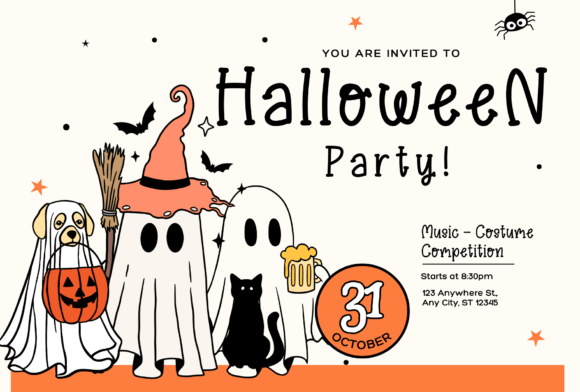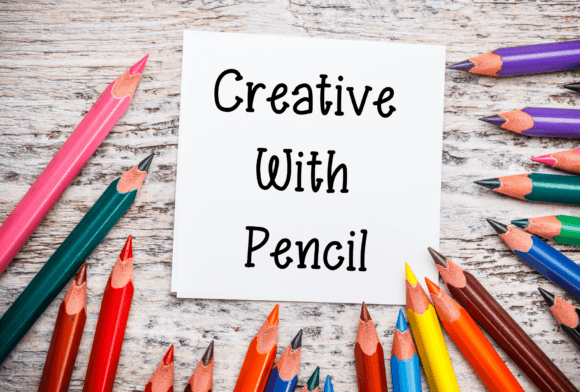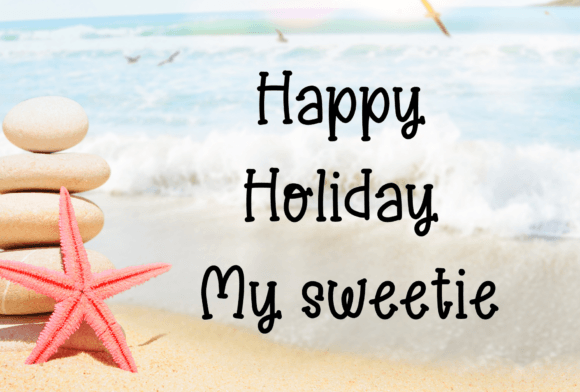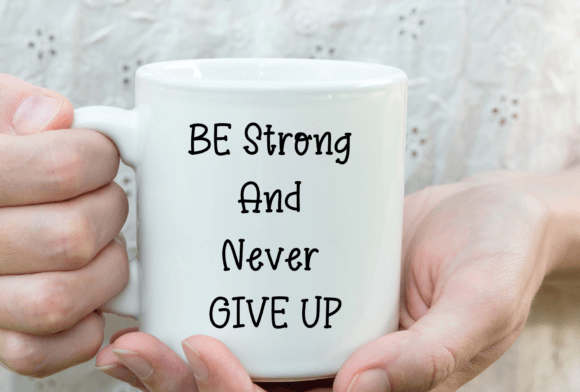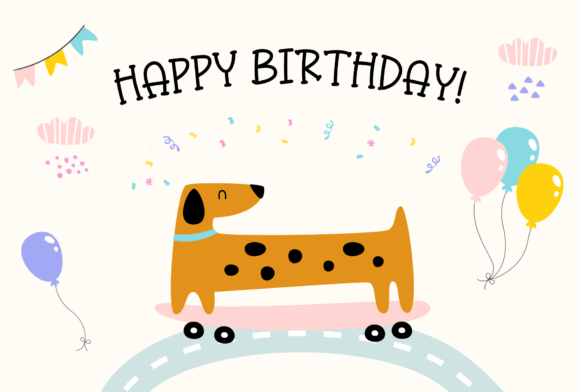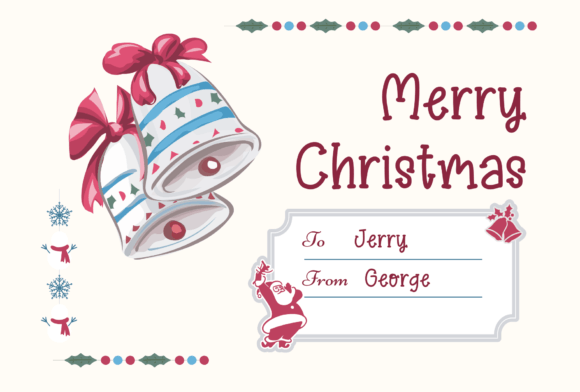
The Joy of Children Font: Adding a Touch of Whimsy to Your Designs
I still remember the time I was working on a project for a children’s party invitation. I had all the graphics and colors sorted out, but I was stuck on finding the perfect font. The invitation needed to be fun, playful, and appealing to kids. That’s when I stumbled upon the Children Font. It was like a breath of fresh air – the cute and playful handwritten letters looked like they were written by a friendly friend. I was hooked!
What Makes Children Font So Special?
The Children Font is a beautiful, handwritten font that is perfect for making your messages extra special. It has fun shapes and squiggly lines that make words look happy and exciting. The font is designed to look like it was written with love, making it ideal for projects that require a personal touch.
What I Love About Children Font ✨
- ✅ The font is extremely versatile and can be used for a wide range of projects, from party invitations to social media graphics.
- ✅ The letters are carefully crafted to look like they were written by hand, giving your designs a personal touch.
- ✅ The font comes with a range of OpenType features, including glyphs and stylistic alternates, which allow you to customize your text.
- ⚠️ The font may not be suitable for very formal or professional projects, as it has a distinctly playful feel.
- ⚠️ Some of the letters may be a bit tricky to read, especially for those with dyslexia or other reading challenges.
The Designer Inspiration Behind Children Font
The Children Font was designed by a talented typographer who wanted to create a font that captured the whimsy and playfulness of childhood. The designer drew inspiration from children’s handwriting and the illustrations found in classic kids’ books. The result is a font that’s both fun and elegant, perfect for a wide range of creative projects.
Q: What is the Children Font and what is it used for?
A: The Children Font is a handwritten font designed to look like it was written with love. It’s perfect for projects that require a personal touch, such as party invitations, social media graphics, and other creative projects.
Q: Is the Children Font easy to read?
A: The Children Font is generally easy to read, but some of the letters may be a bit tricky for those with dyslexia or other reading challenges.
Q: Can I customize the Children Font?
A: Yes, the Children Font comes with a range of OpenType features, including glyphs and stylistic alternates, which allow you to customize your text.